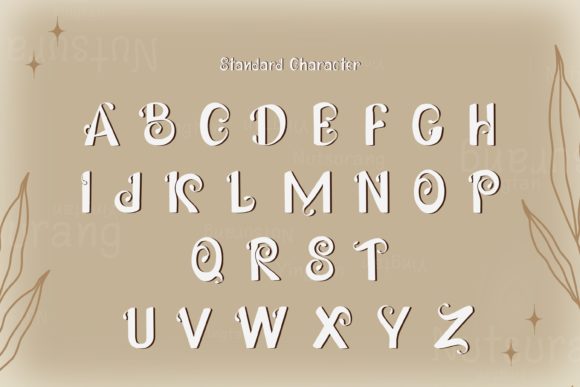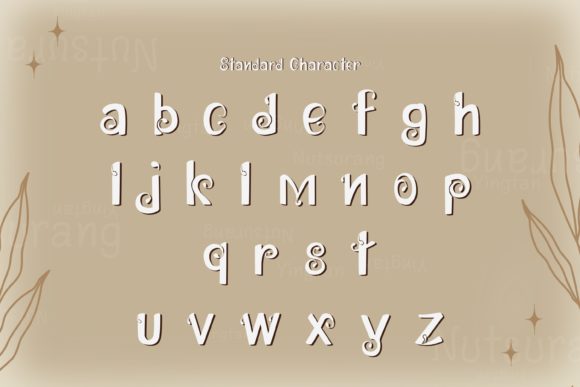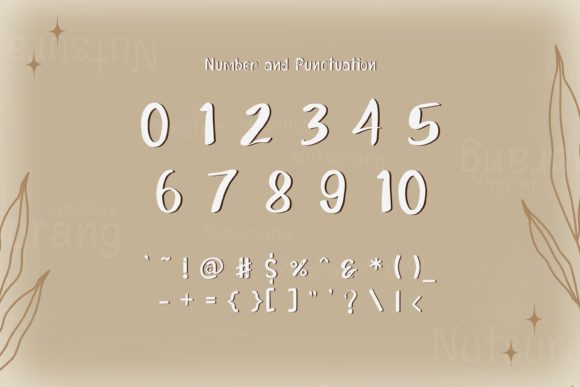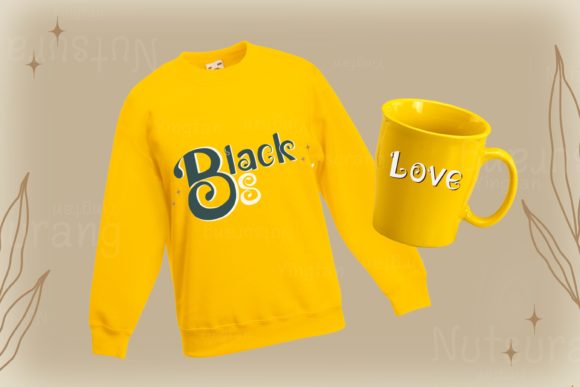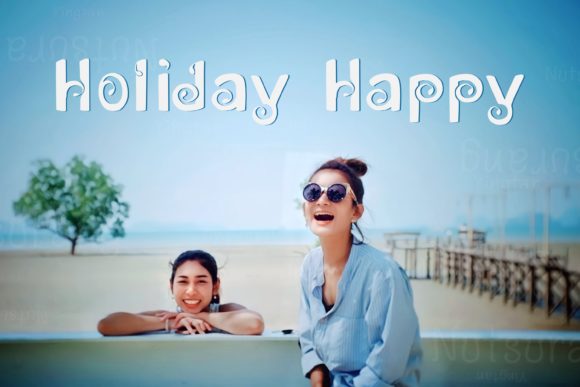
Unleash Your Creativity with Black Swan Font
Are you on the hunt for a font that adds a touch of elegance and sophistication to your design projects? Look no further than the Black Swan Font. This bold and thick lettered display font is perfect for designers and crafters who want to make a statement with their work. In this article, we’ll dive into the features and benefits of Black Swan Font, and explore how it can elevate your designs to the next level.
What is Black Swan Font?
Black Swan Font is a stunning display font that boasts a bold and thick lettered design. Its unique and eye-catching style makes it perfect for a wide range of projects, from logos and branding to labels, photography, and more. Whether you’re working on a special event, a product launch, or simply want to add a touch of elegance to your everyday designs, Black Swan Font is the perfect choice.
Key Features of Black Swan Font
- Bold and Thick Lettering: Black Swan Font features bold and thick lettering that makes it perfect for headlines, titles, and other display text.
- Elegant and Sophisticated: The font’s elegant and sophisticated design makes it perfect for high-end branding, luxury products, and special events.
- Versatile: Black Swan Font is versatile and can be used for a wide range of projects, from logos and labels to photography and watermarks.
- Easy to Read: Despite its bold design, Black Swan Font is easy to read, making it perfect for use in a variety of contexts.
Benefits of Using Black Swan Font
So why choose Black Swan Font for your design projects? Here are just a few benefits of using this stunning font:
- Adds a Touch of Elegance: Black Swan Font adds a touch of elegance and sophistication to any design project, making it perfect for high-end branding and luxury products.
- Stand Out from the Crowd: The font’s unique and eye-catching design helps your projects stand out from the crowd and grab attention.
- Versatile and Flexible: Black Swan Font is versatile and flexible, making it perfect for use in a wide range of projects and contexts.
- Easy to Use: The font is easy to use and can be easily integrated into your design workflow.
Project Ideas for Black Swan Font
So what can you create with Black Swan Font? Here are a few project ideas to get you started:
- Logos and Branding: Use Black Swan Font to create stunning logos and branding materials that make a statement.
- Labels and Packaging: Add a touch of elegance to your labels and packaging with Black Swan Font.
- Photography and Watermarks: Use Black Swan Font to add a touch of sophistication to your photography and watermarks.
- Special Events: Create stunning invitations, posters, and other materials for special events with Black Swan Font.
Tips for Using Black Swan Font
Here are a few tips for getting the most out of Black Swan Font:
- Use it Sparingly: Because Black Swan Font is bold and eye-catching, it’s best to use it sparingly to avoid overwhelming your design.
- Pair it with Other Fonts: Experiment with pairing Black Swan Font with other fonts to create a unique and interesting design.
- Adjust the Size and Color: Adjust the size and color of Black Swan Font to fit your design needs and create a cohesive look.
| Font Name | Black Swan Font |
| Author | N Nakorn Creative |
In conclusion, Black Swan Font is a stunning display font that adds a touch of elegance and sophistication to any design project. Its bold and thick lettered design makes it perfect for a wide range of projects, from logos and branding to labels, photography, and more. With its versatility, flexibility, and ease of use, Black Swan Font is a must-have for designers and crafters who want to take their designs to the next level.